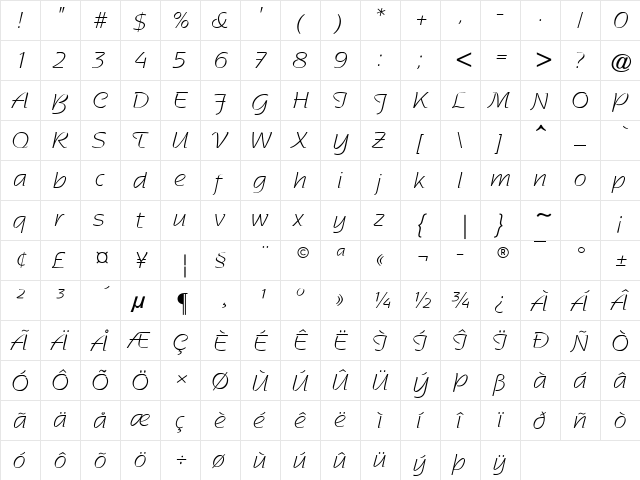
Sentimental Script Light SSi Regular Font Preview
Design Context for Sentimental Script Light SSi Typeface
Sentimental Script Light SSi flows with the natural rhythm of handwritten lettering, making it ideal for designs that call for warmth and personal expression. Its slender proportions lend an understated elegance to any composition.
Font Pairing: Combine Sentimental Script Light SSi with a simple geometric sans for maximum contrast — the tension between flowing curves and clean structure is a classic typographic pairing.
Pro Tip: Pair Sentimental Script Light SSi with a clean sans-serif for supporting text. The contrast between fluid script and geometric structure creates an elegant typographic hierarchy.